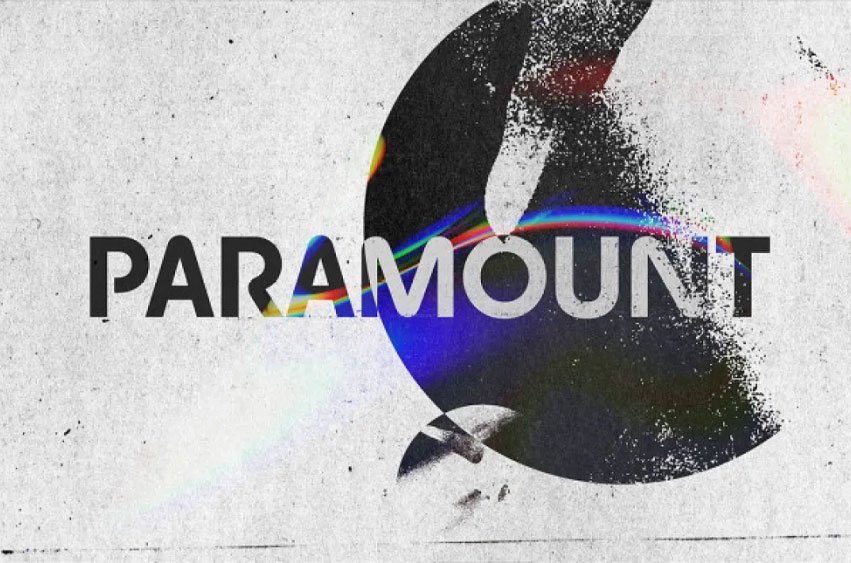
Paramount Sans Font transforms our everlasting human futures. A world where creativity and expression meet a typeface reminiscent of Kubrick’s Hollywood Space era; Paramount unveils humanity more vividly than anything written in stars. Paramount font demonstrates how typographic possibilities go far beyond traditional family structures, providing an inspiring glimpse of future possibilities.
Chi-Long Trouu’s latest offering from ECAL design educator Chi-Long Trouu seeks to shed some light on what the next few years might hold for humanity and itself. Paramount Loophole, ideal for spaceships lost in space as well as apps that care for people genuinely, serves as both a connection and soul for future-conceptualization projects. It serves as beacon in an uncertain universe that serves to bridge conceptualization with reality.
Paramount or Paramount Neo is ideal for long and lively text. The geometric sans-serif font family is comprised of two sets (each consisting of six roman types matched to an italic font). This allows designers to craft messages with maximum quality and clarity. Paramount can showcase and announce anything. When used in attractive displays, Paramount conveys audacity, uniqueness, and an approachable distinction.
Paramount boasts a vast collection of glyphs that offer plenty of variation for both uppercases and lowercases, enabling one to experiment with its use for futuristic or neo-futuristic designs, while from an intermediate distance one may even spot signs of hand lettering techniques from long ago. C, J and S have distinct terminals; E F C R are less certain; offering an eye-catching contrast, providing an unforgettable visual journey into this text and reminding us all to have faith for its future.
Paramount stands as a testament to our never-ending pursuit of new ideas, while offering our own distinctive expression. The brand’s launch signifies a period of transition when typography plays an essential role in human communication – with Paramount designing’s future close at hand as they explore possibilities yet unexplored.